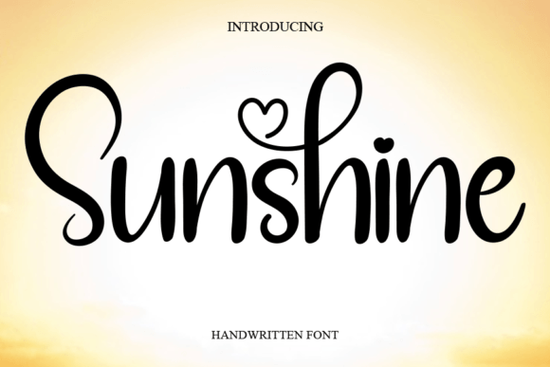
If you're looking for a handwritten font that feels warm, approachable, and effortlessly stylish, the Sunshine Font might be exactly what your next project needs. Designed with simplicity in mind, Sunshine brings a natural, hand-drawn charm to everything from greeting cards and invitations to social media graphics and product packaging. It’s especially popular among crafters, small business owners, and print-on-demand sellers who want their designs to feel personal without being overly ornate.
Unlike heavily stylized script fonts that can overwhelm a layout, Sunshine strikes a balance between legibility and personality. Its clean lines and gentle curves make it easy to read at various sizes whether you’re using it for a bold headline or a subtle note on a handmade label.
What kinds of projects work best with Sunshine Font?
Sunshine shines (pun intended!) in contexts where authenticity matters. Think of it as the typographic equivalent of a friendly smile it doesn’t shout, but it leaves a positive impression. Here are a few real-world uses:
- Greeting cards and invitations: Perfect for birthdays, baby showers, or thank-you notes where warmth is key.
- Branding for small businesses: Ideal for bakeries, boutiques, or wellness brands aiming for a soft, human touch.
- Print-on-demand products: Works beautifully on mugs, tote bags, and T-shirts with uplifting messages or minimalist quotes.
- Digital planners and worksheets: Its readability makes it great for printable resources used in education or self-care.
If you enjoy Sunshine’s relaxed vibe, you might also like other handwritten options like the cheerful Sweet Cupcake Font, which adds a playful sweetness, or the earthy Baby Boho Font for a more organic, free-spirited look.
How does Sunshine compare to other handwritten fonts?
Handwritten fonts come in many flavors from bouncy scripts to precise brush lettering. Sunshine sits comfortably in the middle: it’s not as structured as formal calligraphy, nor as chaotic as sketch-style lettering. This makes it highly versatile.
For example, if you’ve used the Victory Swing Font, you’ll notice it has more dramatic swashes and movement. Sunshine, by contrast, keeps things grounded and tidy ideal when you need personality without distraction.
Similarly, while the Handmade Font leans into irregular textures and rough edges for a truly artisanal feel, Sunshine offers a smoother, more polished appearance that still feels personal. And if you’re drawn to fonts with a storybook quality, the Front Picture Font delivers nostalgic charm but Sunshine gives you modern simplicity instead.
Tips for pairing Sunshine Font with other typefaces
Because Sunshine is understated, it pairs well with clean sans-serif fonts. Try combining it with something neutral like Montserrat, Lato, or Open Sans for body text. This creates a nice contrast: the handwritten headline draws attention, while the supporting text remains highly readable.
Avoid pairing it with other script or decorative fonts that can quickly become visually noisy. Instead, let Sunshine stand alone as the expressive element in your design.
Also, consider spacing. Handwritten fonts often benefit from slightly increased letter-spacing (tracking), especially in larger sizes. A little breathing room helps each character retain its individuality without crowding its neighbors.
Who should use this font and why?
Sunshine Font is particularly useful for:
- Crafters creating handmade cards, scrapbooks, or vinyl decals who want text that feels personal but isn’t fussy.
- Small business owners designing logos, labels, or social content that conveys friendliness without sacrificing professionalism.
- Print-on-demand sellers looking for a reliable go-to font for quote-based merchandise that appeals to a broad audience.
- Teachers and coaches making worksheets, certificates, or motivational posters with a gentle, encouraging tone.
Its simplicity means it scales well across digital and physical formats, and it loads cleanly in most design software from Canva and Adobe Illustrator to Silhouette Studio.
Quick checklist before using Sunshine Font:
- ✅ Test it at different sizes to ensure readability.
- ✅ Pair it with a simple sans-serif for balance.
- ✅ Avoid overusing it let it highlight key phrases, not fill entire paragraphs.
If you’re ready to add a touch of everyday warmth to your designs, give Sunshine Font a try it’s the kind of tool that quietly makes everything feel a little more human.